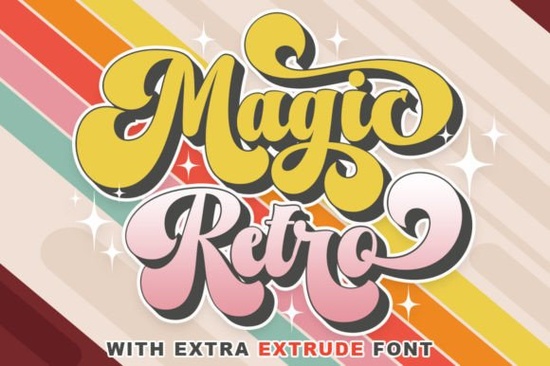
If you're looking for a display font that feels like flipping through an old comic book, vintage poster, or 80s arcade flyer Magic Retro Font is a natural fit. It’s not overly complex or fussy, but it carries strong personality: rounded letterforms, subtle bounce in the baseline, and just enough irregularity to feel handmade without sacrificing readability. Designers and crafters who work with retro themes think diner signs, band merch, greeting cards, or print-on-demand mugs and tees often reach for fonts like this when they need warmth and instant recognition.
What makes Magic Retro Font work so well for real projects?
It’s designed as a display font first meaning it shines at larger sizes (24pt and up), where details like the gentle curves on the “S”, the slightly uneven stroke weight on uppercase letters, and the friendly, open counters help it stand out without shouting. Unlike some retro fonts that lean too hard into distortion or noise, Magic Retro keeps things clean enough for small businesses to use confidently on product labels, social media banners, or even embroidered patches.
You’ll notice it includes both uppercase and lowercase glyphs, plus standard punctuation and numerals no extra downloads or workarounds needed. It supports Western Latin languages, so it works smoothly in tools like Canva, Adobe Illustrator, Cricut Design Space, and Silhouette Studio. No OpenType features like stylistic alternates or ligatures, which keeps things simple if you’re new to font pairing or tight on time.
How does it compare to other popular retro-style display fonts?
Magic Retro sits comfortably between playful and polished more relaxed than Death Star Font, which leans into bold sci-fi geometry, and less ornate than Aaksaraan Valeriana Font, with its delicate serif flourishes. If you’ve used Cowboy Howdy Font before, you’ll recognize the shared love of friendly, hand-drawn energy but Magic Retro trades western motifs for something more universally nostalgic, like Saturday morning cartoons or neighborhood record store signage.
For contrast, Gilligan Karl Font offers a sharper, bolder silhouette great for headlines that need to grab attention from across a room. Magic Retro, by comparison, invites closer looking. It’s the kind of font you’d choose when tone matters as much as visibility: a birthday invitation, a small-batch candle label, or a sticker pack for teens who love retro gaming aesthetics.
Where do people actually use Magic Retro Font?
We’ve seen it used in practical, everyday ways not just mockups. Here are a few real examples:
- A local bakery added it to their “Throwback Thursday” chalkboard sign and matching Instagram story graphics.
- A teacher created classroom posters for a 1950s-themed history unit students recognized the style instantly.
- An Etsy seller paired it with a simple sans-serif body font for printable party kits (think “Retro Roller Rink” invites or “Neon Diner” favor tags).
- A POD shop used it on a limited-run t-shirt series celebrating analog photography the font softened the tech-heavy subject and made it feel personal.
It’s not ideal for long paragraphs or tiny interface text (like app buttons or footnotes), but that’s expected for any display font. What sets Magic Retro apart is how easy it is to pair: try it with a clean, neutral sans-serif like Montserrat or Inter for balance, or layer it over a subtle halftone texture for extra depth.
Who’s it best suited for?
This font works especially well for:
- Print-on-demand sellers who want consistent, recognizable branding across products without needing custom illustration.
- Crafters using cutting machines the outlines are smooth and convert cleanly to SVG or DXF files.
- Small business owners updating seasonal signage, menus, or email headers without hiring a designer every time.
- Hobbyists making personalized gifts it adds charm without requiring advanced typography skills.
Before downloading Magic Retro Font, ask yourself:
- Will this be used at larger sizes (headlines, logos, posters)? ✅
- Do I want a friendly, approachable retro vibe not gritty, distressed, or ultra-minimal? ✅
- Am I pairing it with a simpler font for body text or captions? ✅
- Is my project for physical goods, digital graphics, or both? (Yes to both covered.) ✅
If you answered yes to most of those, it’s a safe, versatile pick and one that tends to grow on you the more you use it.